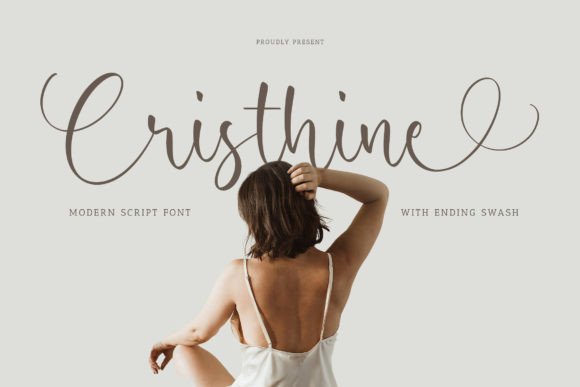
Cristhine Font: An Exquisite Fusion of Elegance and Modernity
Unleash the captivating aura of Cristhine, an extraordinary script font that weaves a spell of sophistication and charm. Stir your creativity and let your designs take flight with this enchanting font, meticulously crafted to turn your visions into reality.
Step into a world of elegance with Cristhine, a font that exudes grace in every curve and stroke. Its exquisite handwritten style dances across the page, infusing your projects with a touch of timeless beauty. Whether you're crafting wedding invitations that whisper romance, designing logos that command attention, or creating social media posts that captivate your audience, Cristhine is your perfect companion.
Experience the allure of a font that effortlessly blends the charm of traditional calligraphy with a refreshing contemporary twist. Cristhine's captivating letters dance with a lively rhythm, adding a touch of playful energy to your designs. Let your imagination run wild as you explore endless possibilities, from breathtaking posters that demand attention to eye-catching branding that leaves a lasting impression.
Immerse yourself in the versatility of Cristhine, a font that adapts seamlessly to a symphony of creative endeavors. Its inherent flexibility allows it to shine in a multitude of settings, from elegant wedding stationery and heartfelt greeting cards to captivating social media graphics and dynamic marketing materials. Unleash your creativity and push the boundaries of design with Cristhine as your trusty ally.